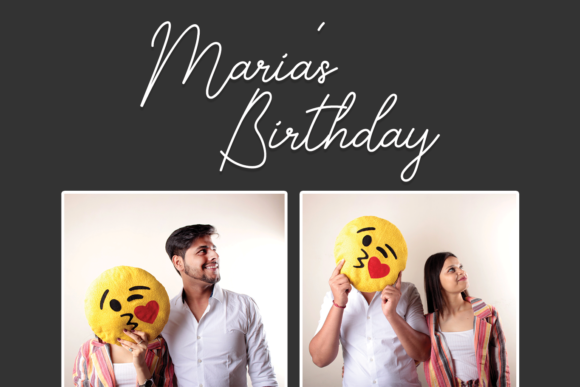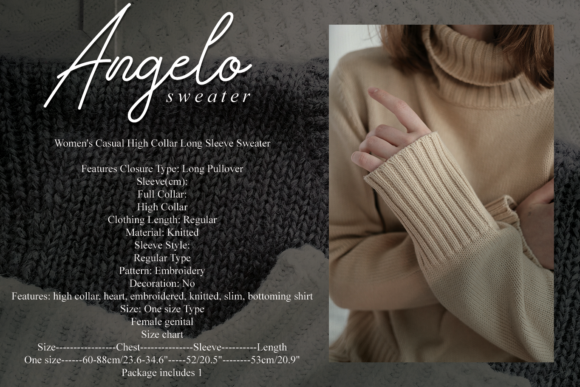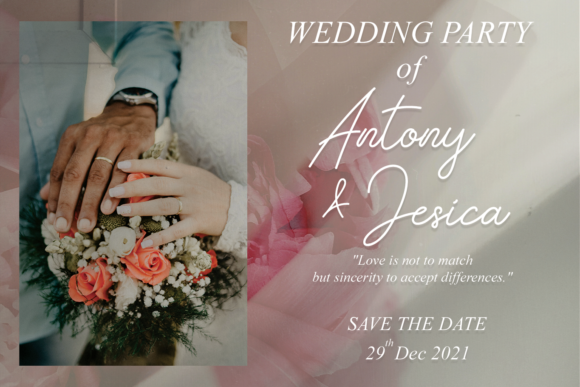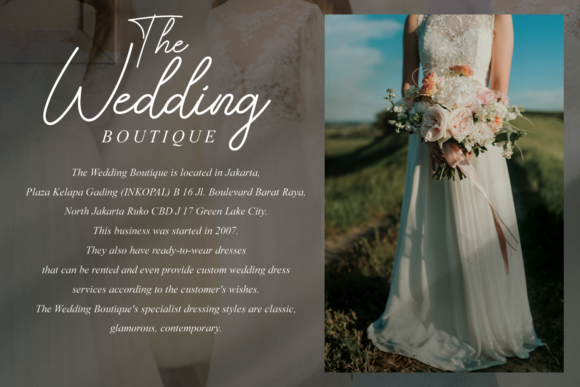
Happiness Font: Elevate Your Designs with Elegance and Sophistication
Are you tired of using the same old fonts in your designs? Do you want to add a touch of elegance and sophistication to your work? Look no further than the Happiness Font, a beautiful and refined script font that is sure to take your designs to the next level. In this article, we’ll explore the features and benefits of the Happiness Font, and show you how it can be used to create stunning designs for a variety of applications.
What is Happiness Font?
Happiness Font is a classy, elegant, and modern script font that is perfect for designers and crafters looking to add a touch of sophistication to their work. With its refined and beautiful design, this font is ideal for use in a variety of applications, including logos, branding, invitations, stationery, wedding designs, social media posts, and much more.
Key Features of Happiness Font
- Classy and Elegant Design: The Happiness Font features a beautiful and refined design that exudes elegance and sophistication.
- Modern Look: With its clean lines and modern aesthetic, this font is perfect for designers looking to create contemporary and stylish designs.
- Versatile: The Happiness Font can be used in a variety of applications, from logos and branding to invitations and social media posts.
- Easy to Read: Despite its elegant design, the Happiness Font is easy to read, making it perfect for use in body text as well as headlines.
Uses for Happiness Font
The Happiness Font is a versatile font that can be used in a variety of applications, including:
- Logos and Branding: Create a lasting impression with a custom logo or branding design featuring the Happiness Font.
- Invitations and Stationery: Add a touch of elegance to your invitations, stationery, and greeting cards with the Happiness Font.
- Wedding Designs: Make your wedding designs truly special with the Happiness Font, perfect for use in wedding invitations, programs, and more.
- Social Media Posts: Elevate your social media posts with the Happiness Font, perfect for creating eye-catching graphics and headlines.
Benefits of Using Happiness Font
There are many benefits to using the Happiness Font in your designs, including:
- Increased Elegance and Sophistication: The Happiness Font adds a touch of elegance and sophistication to any design.
- Improved Readability: With its clean lines and easy-to-read design, the Happiness Font is perfect for use in body text as well as headlines.
- Versatility: The Happiness Font can be used in a variety of applications, making it a great addition to any designer’s toolkit.
- Time-Saving: With the Happiness Font, you can create stunning designs in no time, saving you time and effort.
Tips for Using Happiness Font
Here are a few tips for getting the most out of the Happiness Font:
- Use it Sparingly: While the Happiness Font is beautiful, it can be overwhelming if used too much. Use it sparingly to create a lasting impression.
- Pair it with Other Fonts: The Happiness Font pairs well with other fonts, so don’t be afraid to experiment with different combinations.
- Experiment with Colors: The Happiness Font looks great in a variety of colors, so experiment with different colors to find the perfect look for your design.